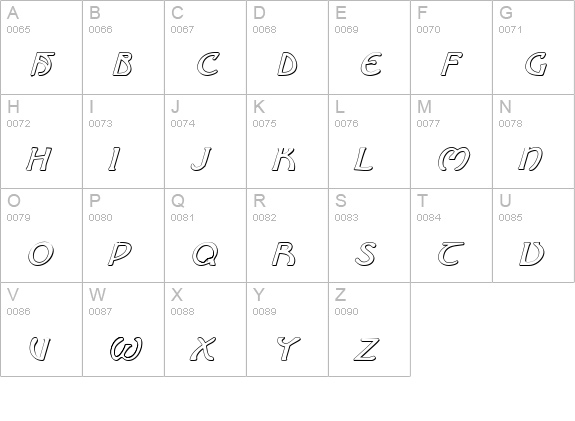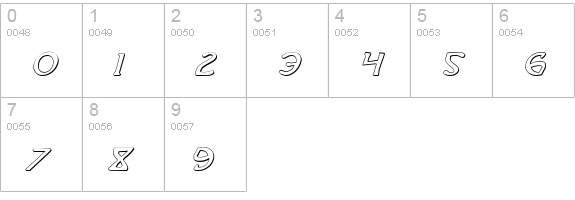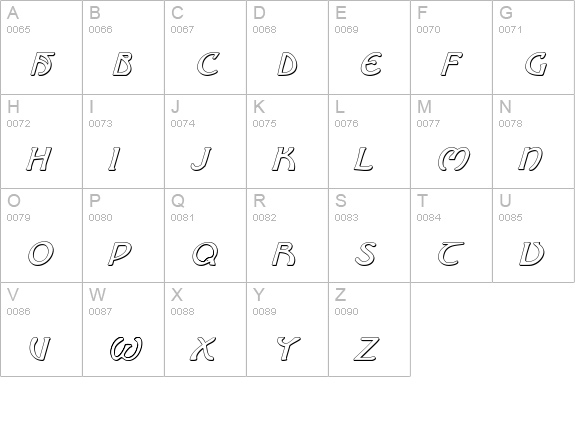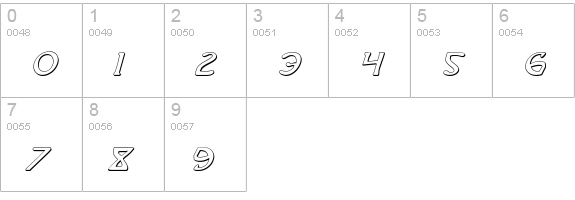
Brin Athyn Shadow Italic is a distinctive, italic variant in the Brin typeface family \xE2\x80\x94 well suited to design and typography projects.
Brin Athyn Shadow Italic is a stunning and elegant font that adds a touch of sophistication to any design project. Its sleek and stylish appearance makes it perfect for a wide range of uses, from branding to editorial design. The italic style of this font adds a dynamic and modern twist, making it stand out from the crowd. What's even better is that Brin Athyn Shadow Italic is available for free download at FontsMarket.com. This means you can easily access this beautiful font without any cost, allowing you to elevate your designs without breaking the bank. Don't miss out on the opportunity to enhance your projects with this exquisite typeface - download Brin Athyn Shadow Italic today!